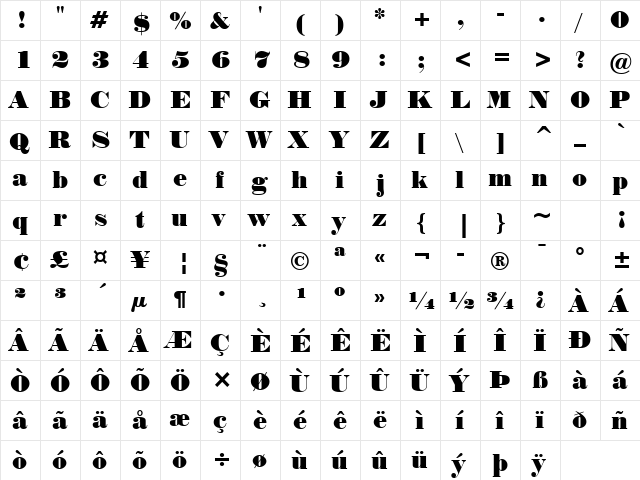
Normande BT Roman
Design Context for Normande BT Typeface
Normande BT offers clean, dependable letterforms without strong stylistic allegiance, making it a practical choice for designers who need flexibility.